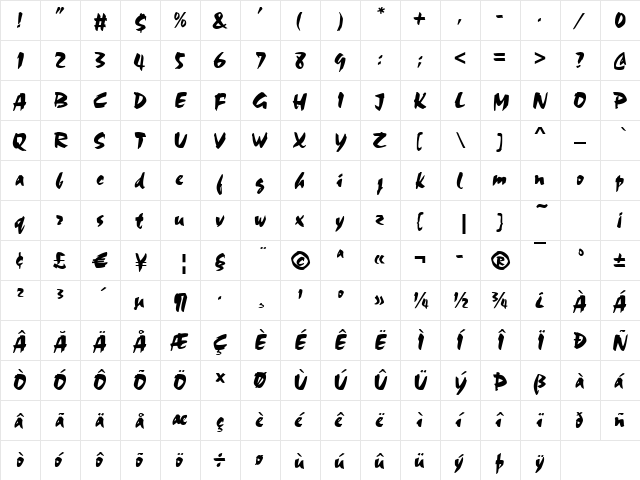
Chandler Regular
Design Context for Chandler Typeface
Chandler flows with the natural rhythm of handwritten lettering, making it ideal for designs that call for warmth and personal expression.
Font Pairing: Combine Chandler with a simple geometric sans for maximum contrast — the tension between flowing curves and clean structure is a classic typographic pairing.
Pro Tip: Pair Chandler with a clean sans-serif for supporting text. The contrast between fluid script and geometric structure creates an elegant typographic hierarchy.